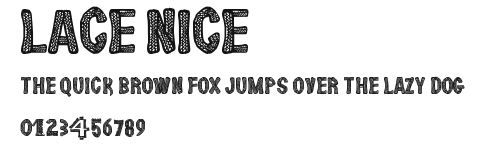
Lace Nice Preview
• Font Name: Lace Nice
• Description: Esta fonte é uma homenagem aos 4 anos da Itararé!
Lace Nice.ttf is a modern, elegant sans-serif font designed for ultimate readability and visual harmony. Perfect for branding, headlines, web design, and print materials.